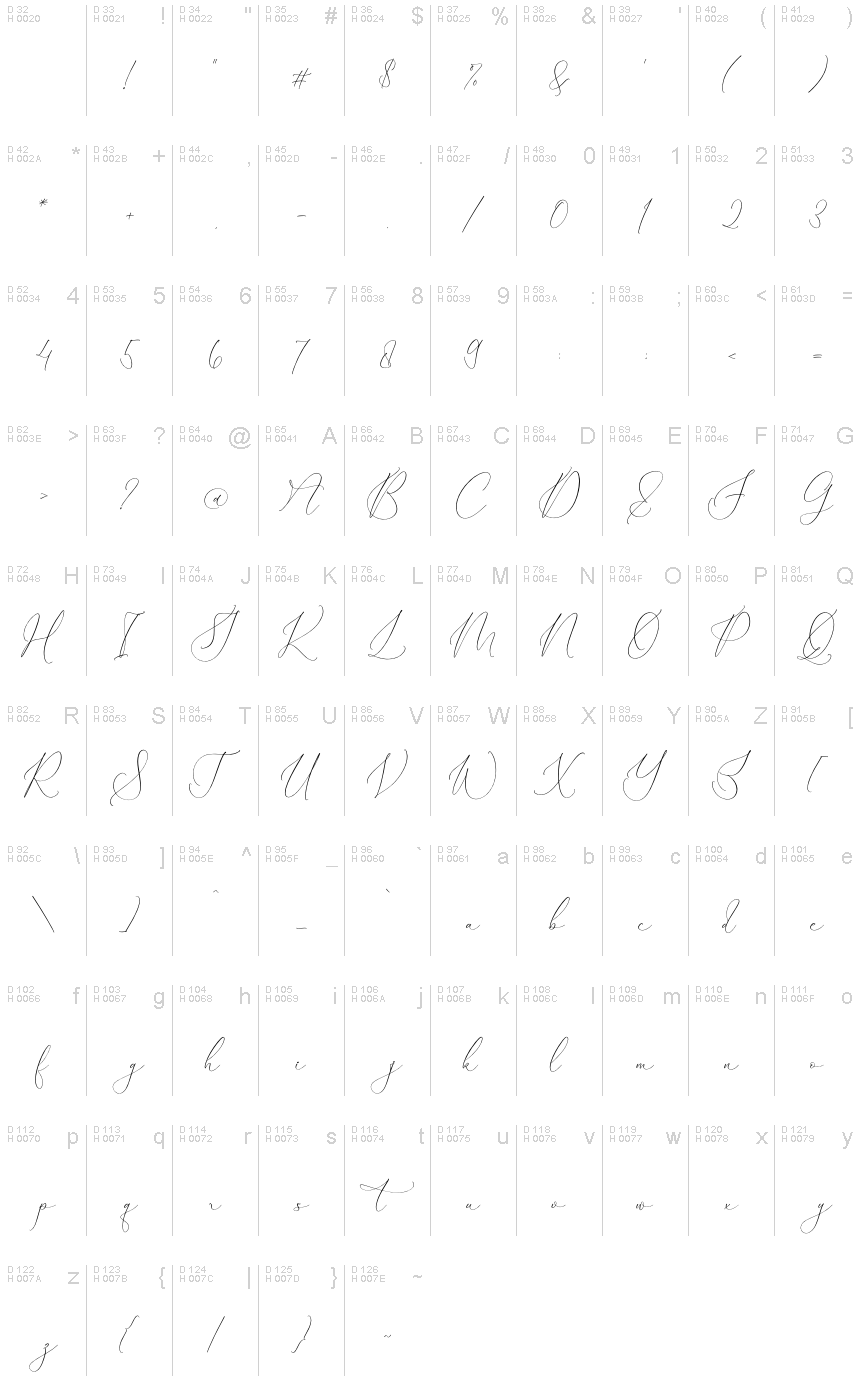
Qirtandy Fantasia
Qirtandy Fantasia, crafted by Storytype Studio, is a handwritten masterpiece that exudes elegance and a personal touch. Its delicate strokes and fluid continuity mimic the grace of an artist's brush, lending each character an organic, airy feel. This font dances between sophistication and whimsy, making it perfect for invitations, branding, and editorial designs where a touch of individuality is desired.
Qirtandy Fantasia brings a bespoke charm to any project it graces, ensuring that your message is not only read but felt.